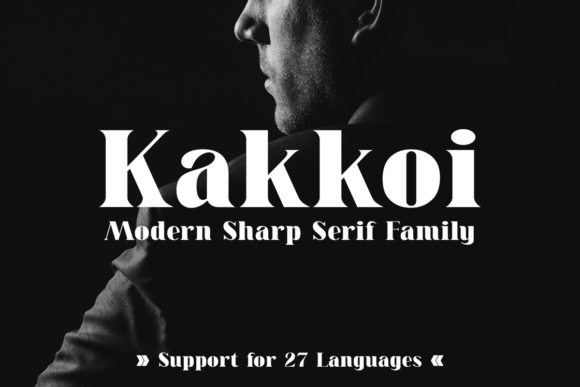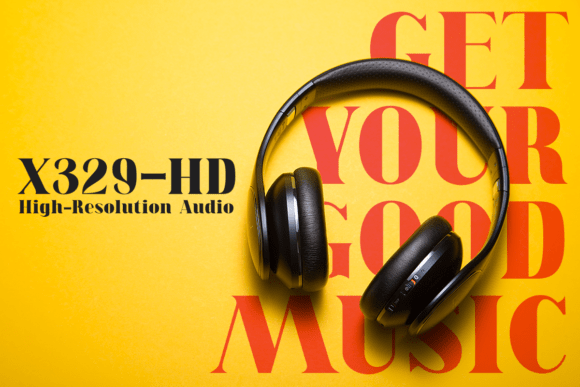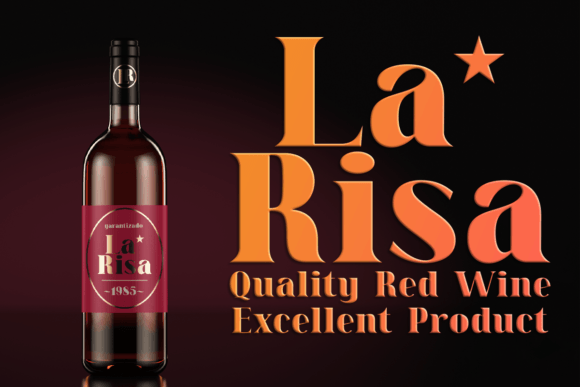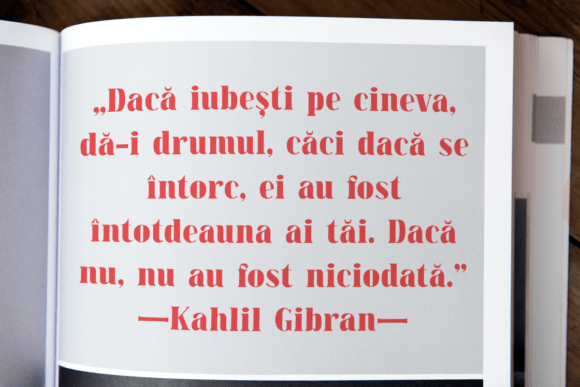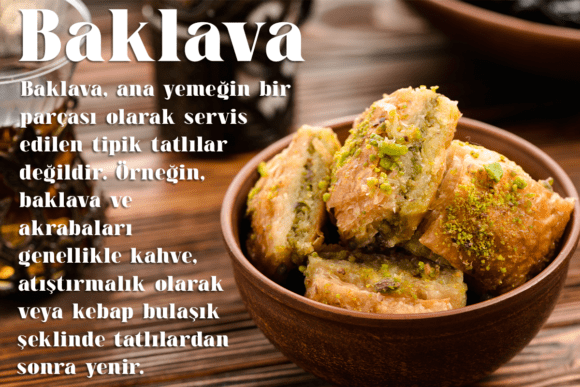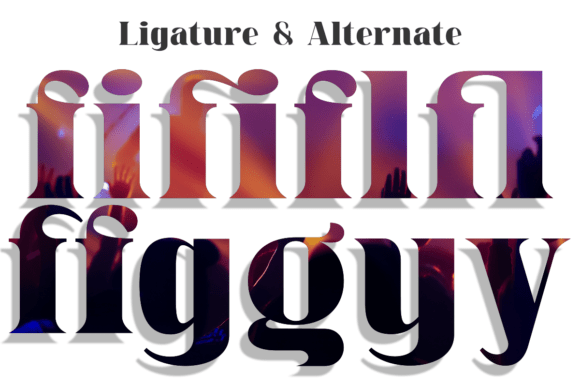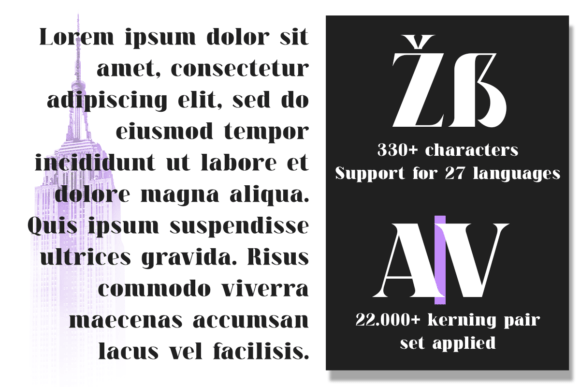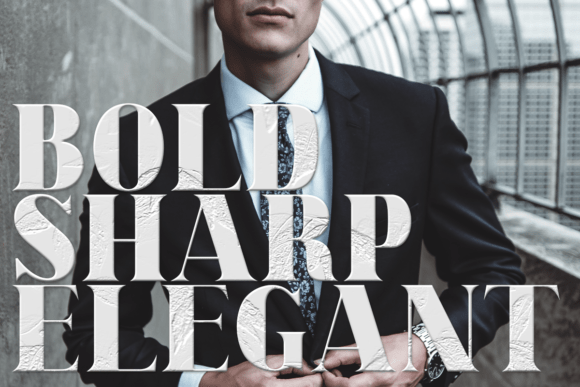
Kakkoi Serif Font is a modern serif typeface designed and shared by Sign Studios. This multifaceted display typeface has enough character for logos, branding, headlines, apparel and more. You can keep it classic or get adorned with ornate alternates for both uppercase and lowercase glyphs.
It’s a bold and modern serif font, carefully handcrafted to become a true favorite. This font will look stunning in any context, whether it’s being used on busy backgrounds or as a standalone headline!